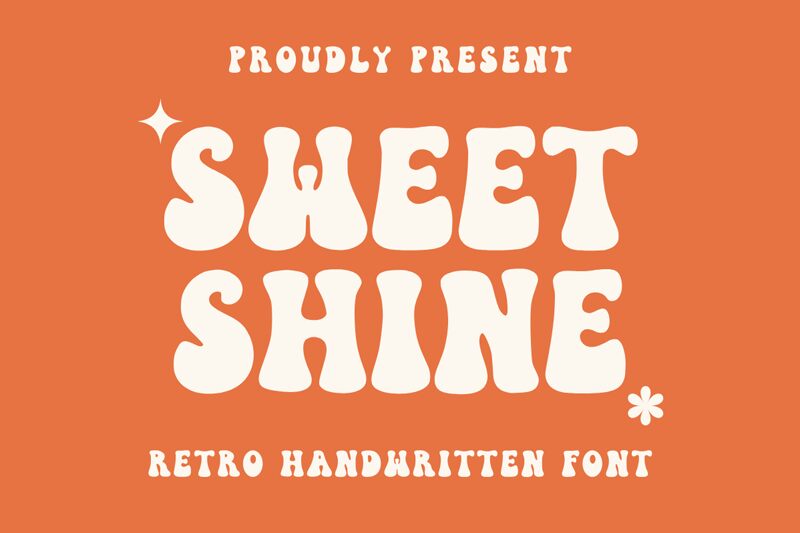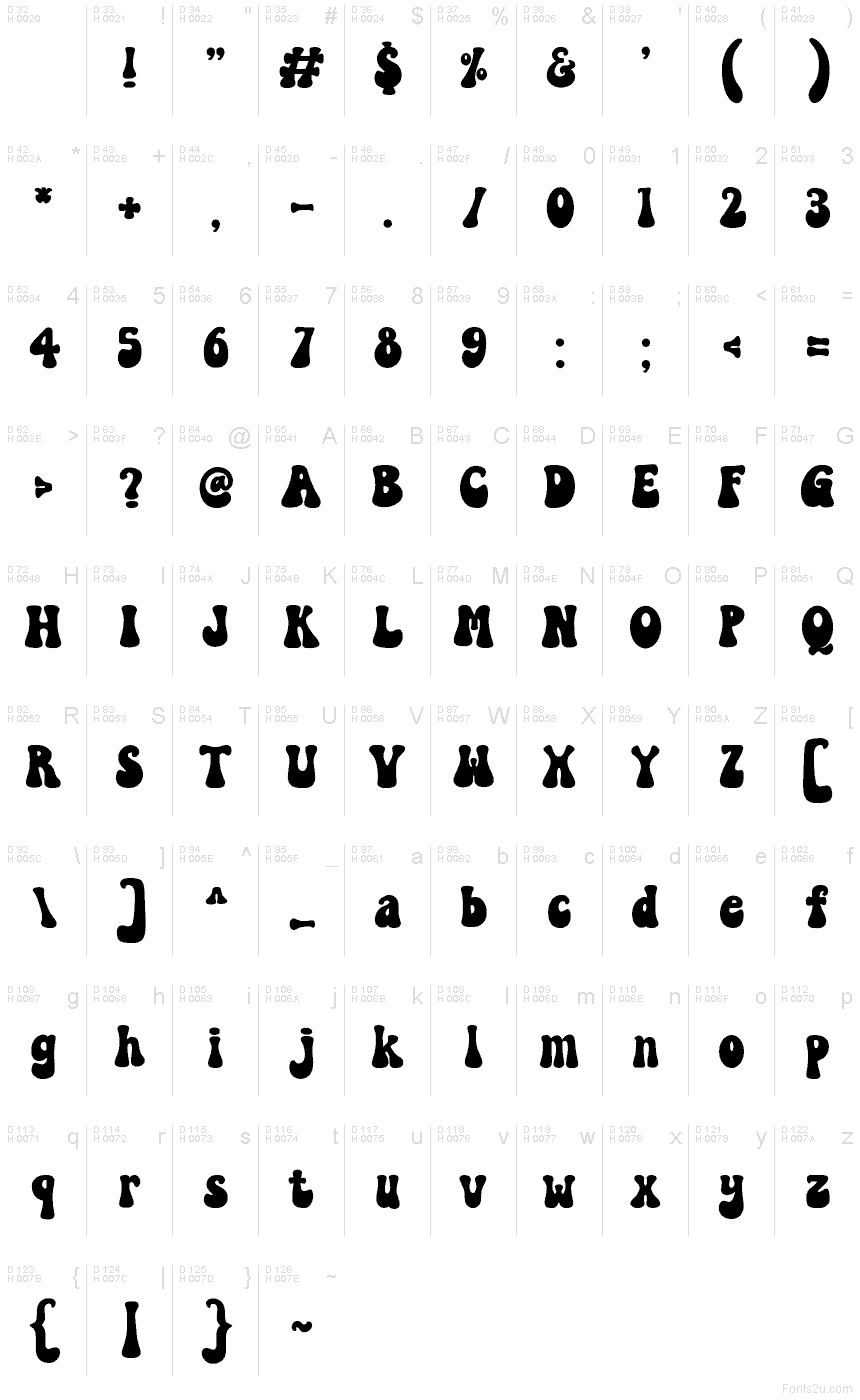
Sweet Shine font by Muhammad Yafinuha is a free groovy display typeface. Its bulbous, inky shapes look almost glossy, with soft puddle-like strokes and playful curves that swell and pinch like taffy. The letters stack into chunky, high-impact words that feel bouncy yet readable, giving headlines a tactile, candy-coated pop without turning messy.
Using Sweet Shine, bold statements come easy-think candy or bakery logos, retro party posters, kids’ brand tags, sticker packs, YouTube thumbnails, and cheerful social graphics. This free font holds best at larger sizes with tight spacing; let it breathe on short phrases. Pair it with a light, neutral sans to keep the sugary energy grounded.